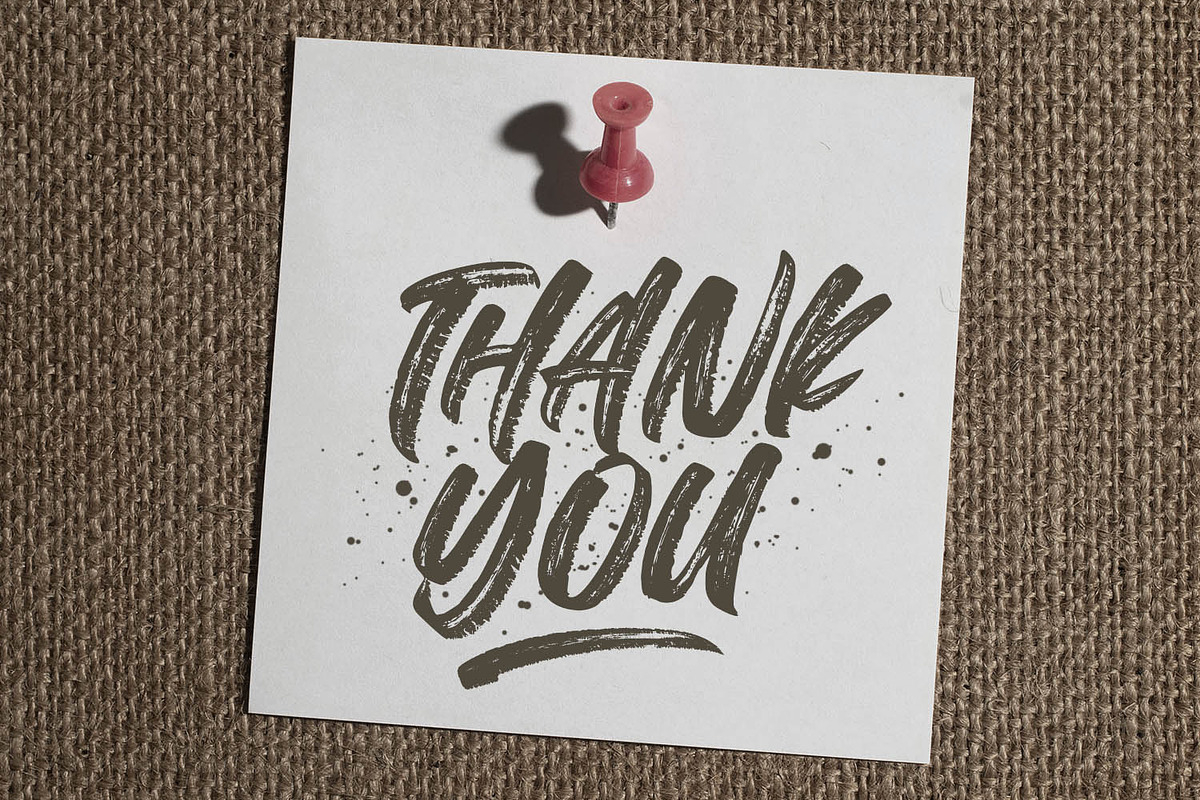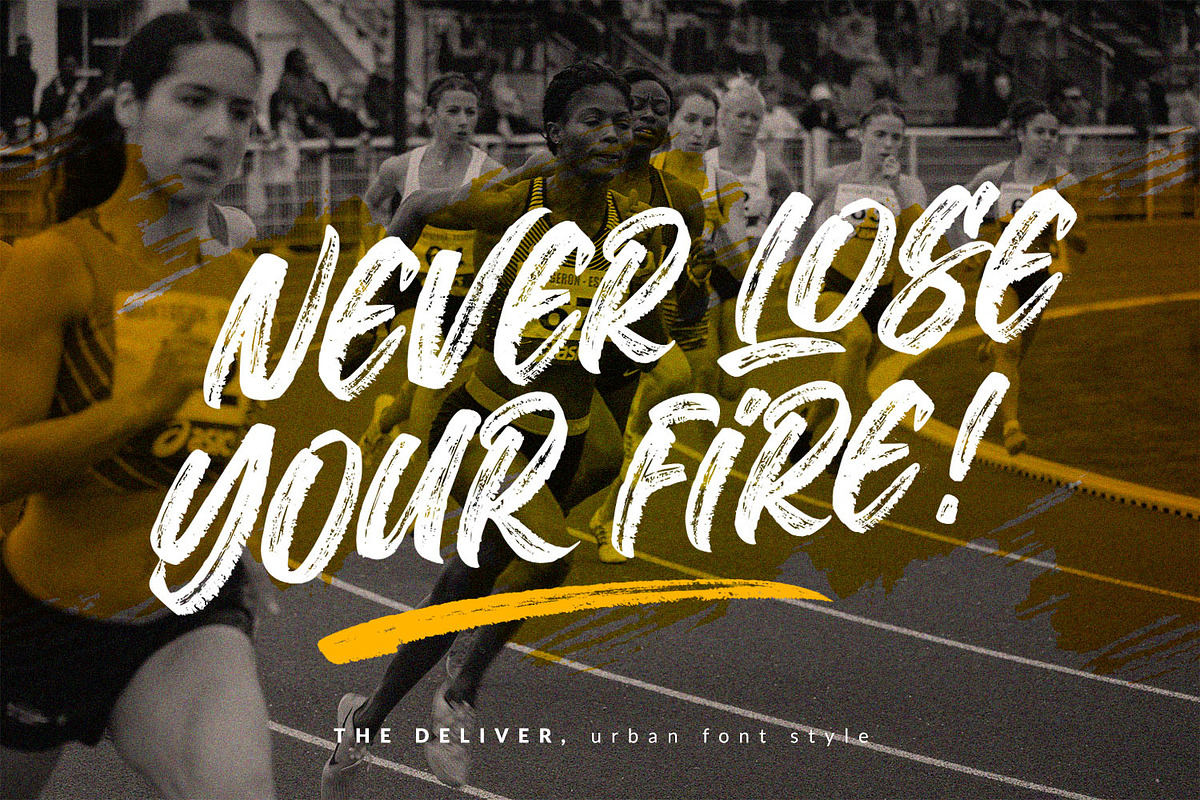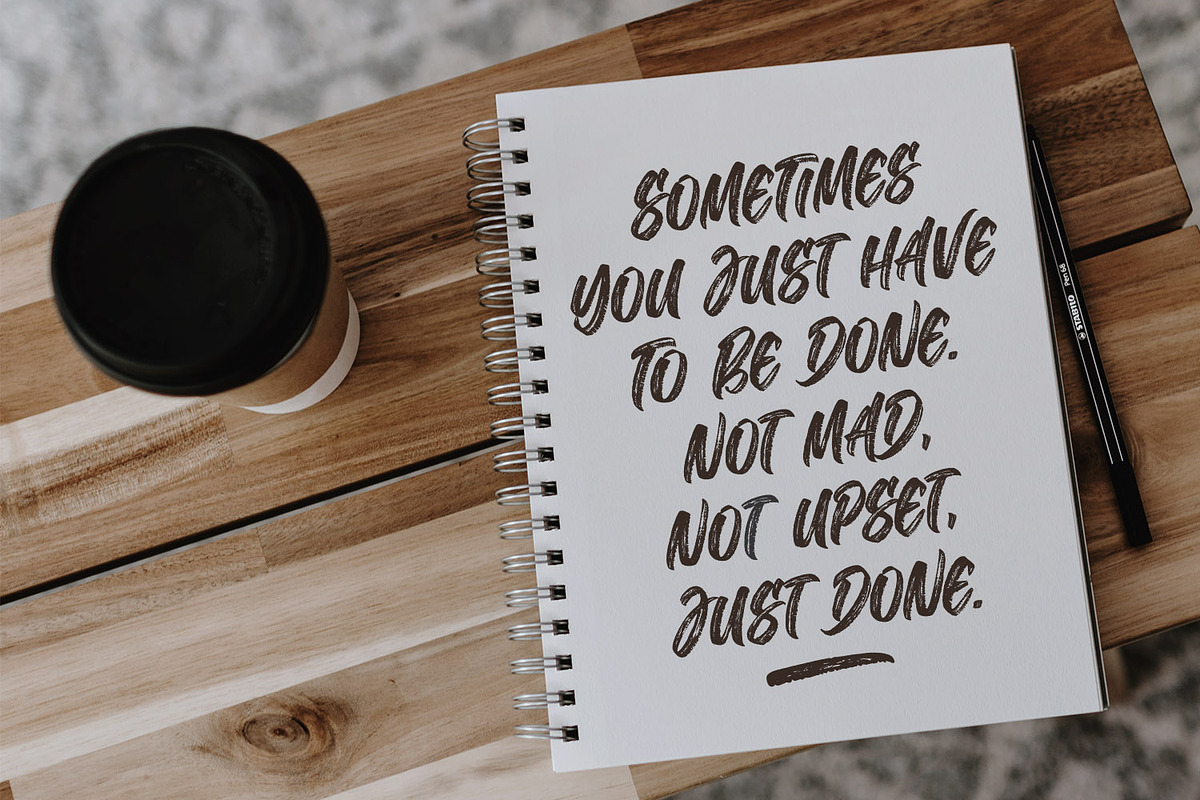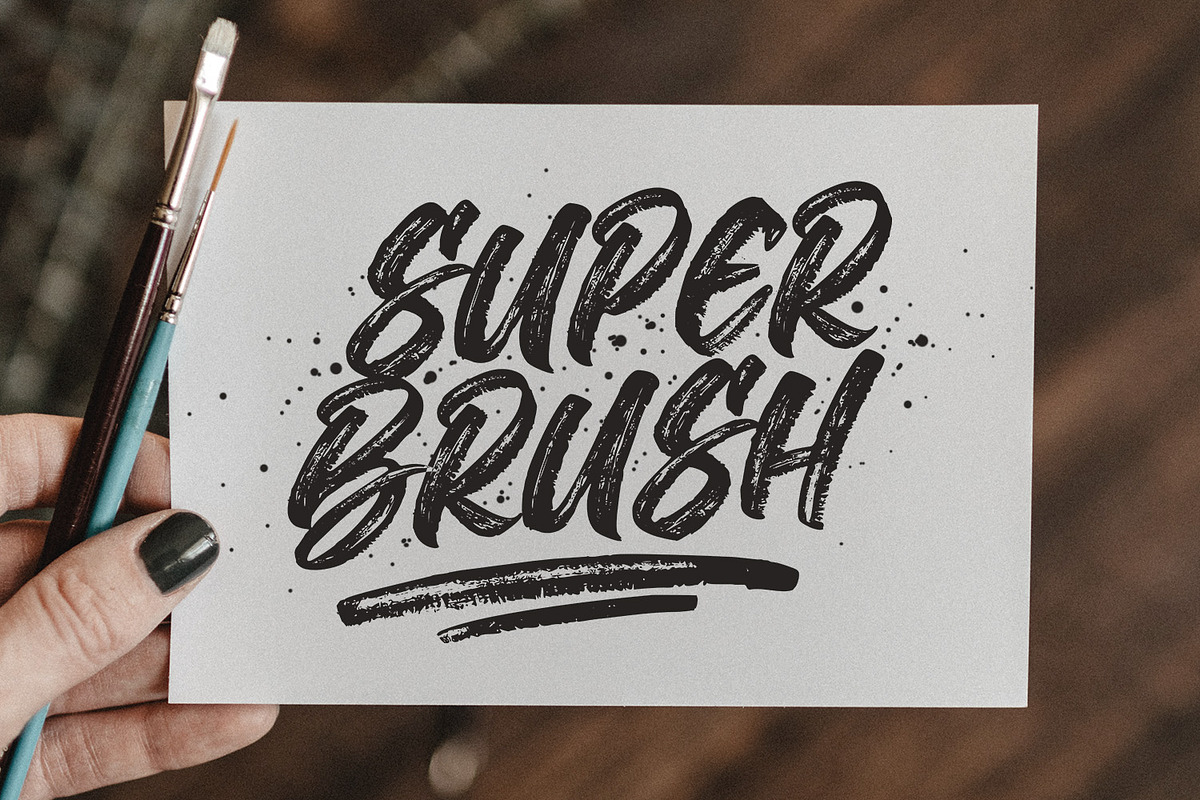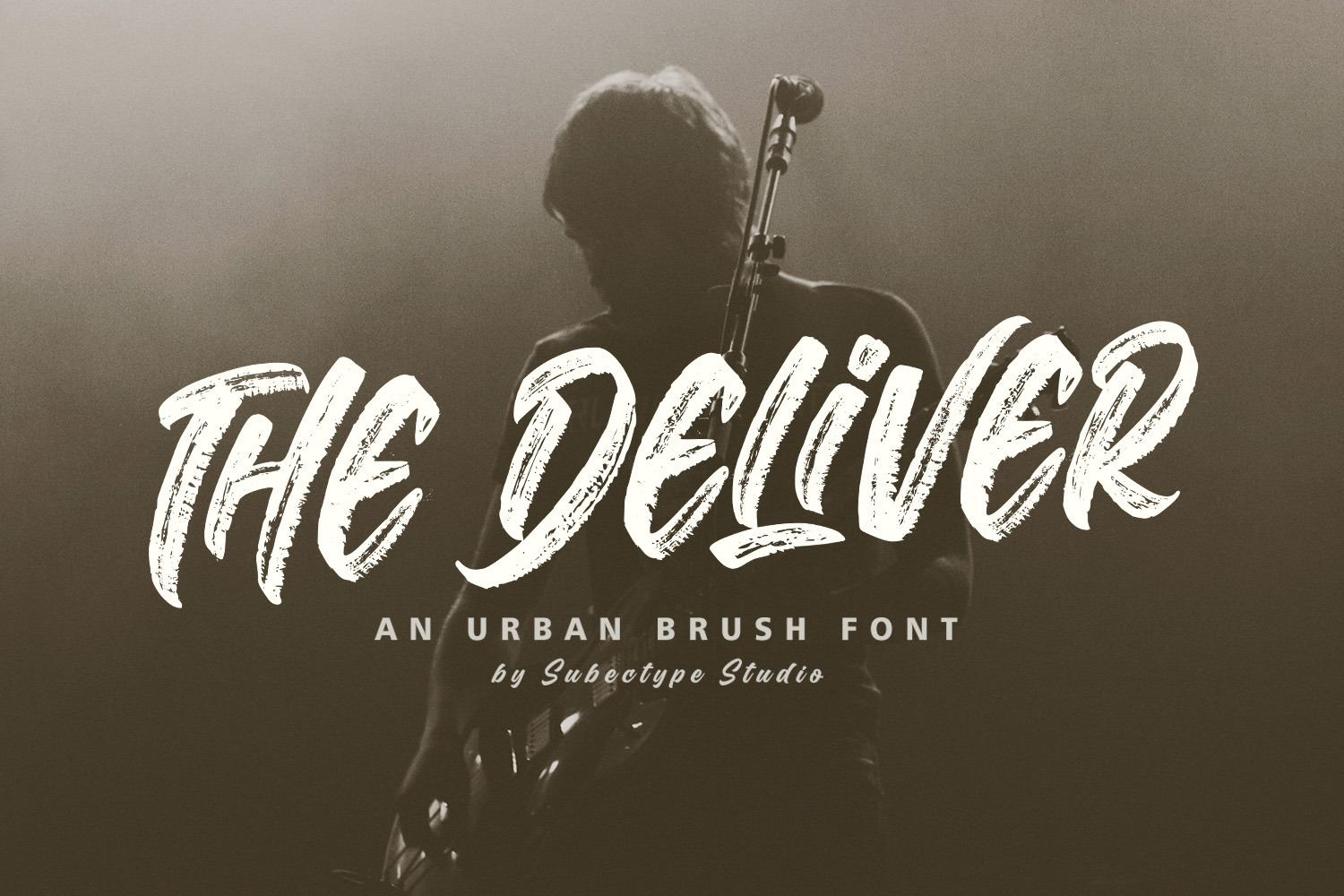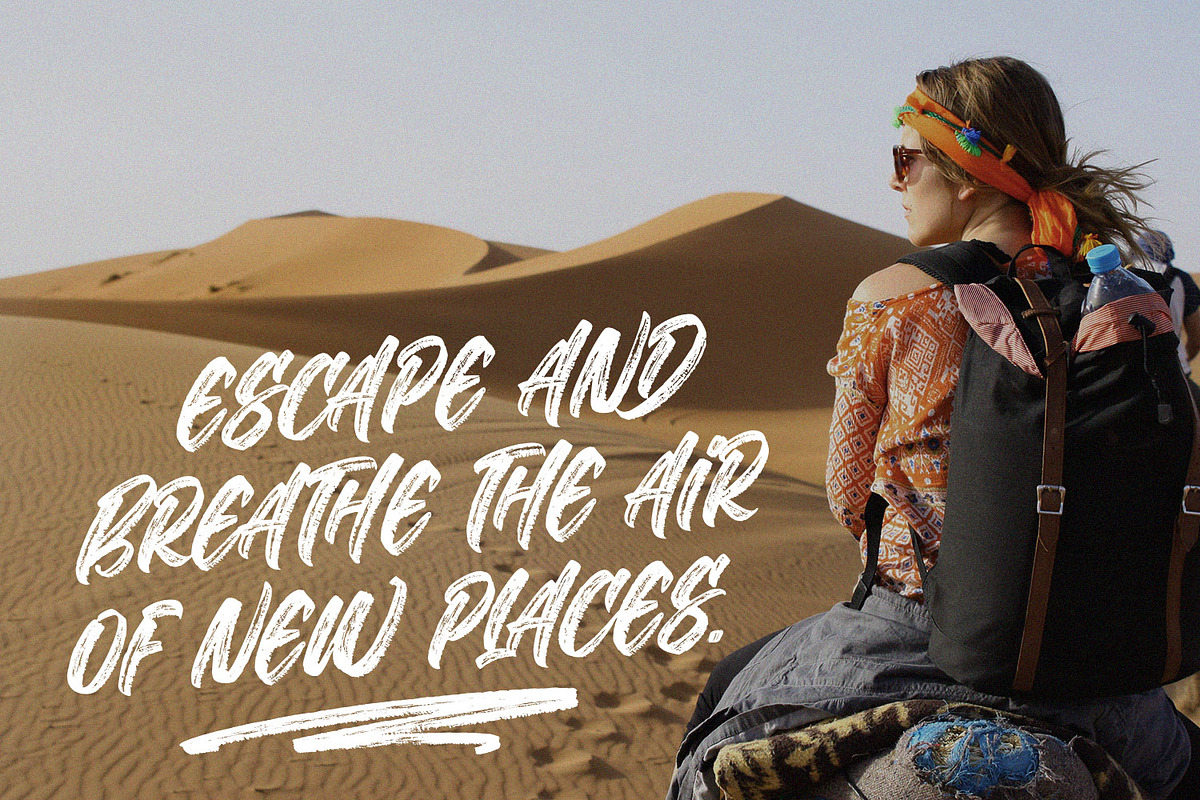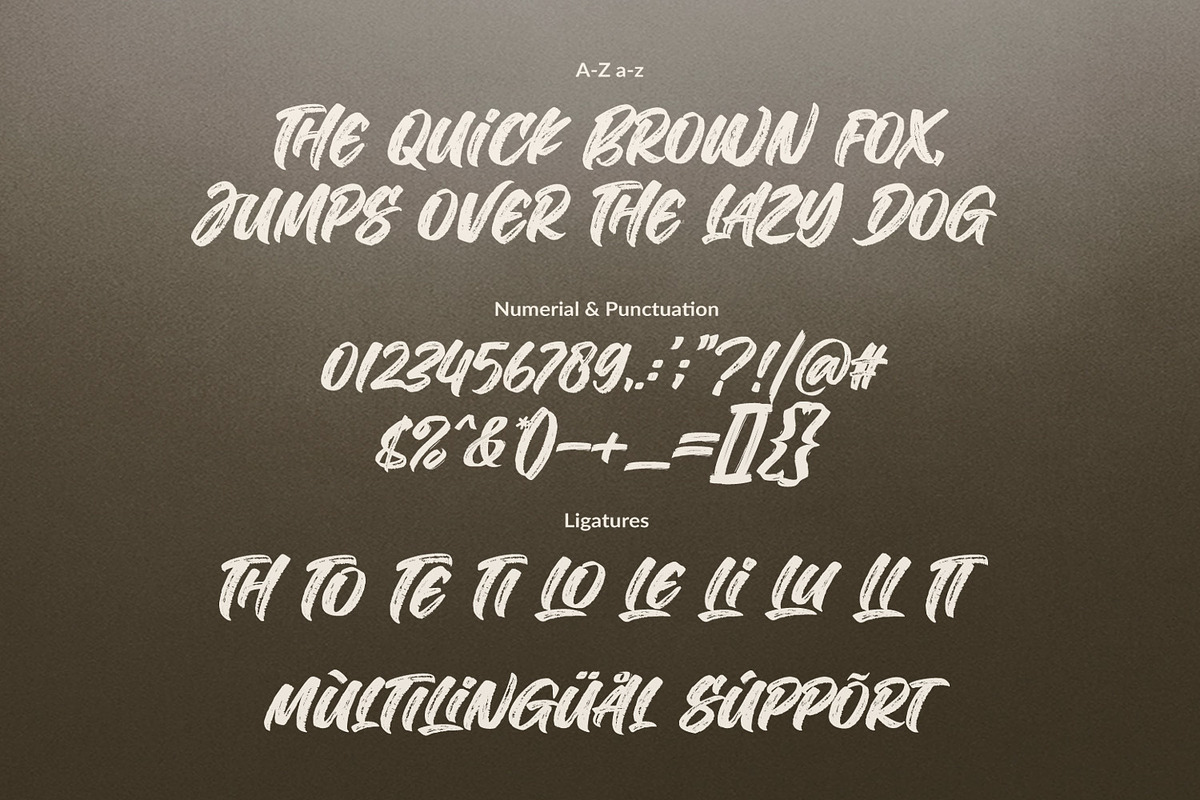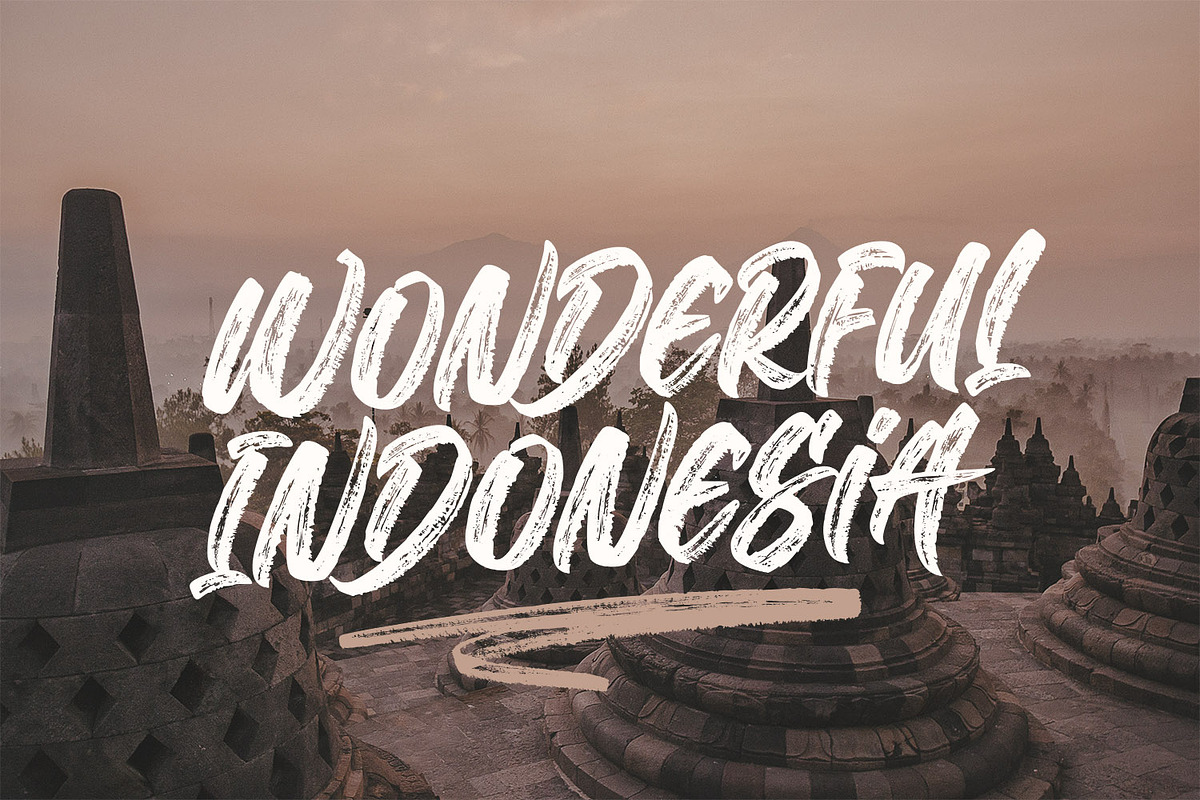
The Deliver - An Urban Brush Font
The Deliver is an urban font with natural handpainted style. Suitable for any design needs, branding, urban design, modern advertising design, Book/Cover Title, special events, adventures, headlines, any brush lettering needs and more.
The Deliver comes with upper and lowercase Standard Characters, Punctuation, Numerals. And some glyphs variation of the OpenType features such as Standard Ligatures and Stylistic Set. Includes a range of multilingual support